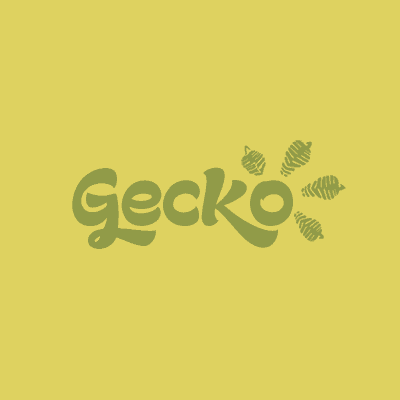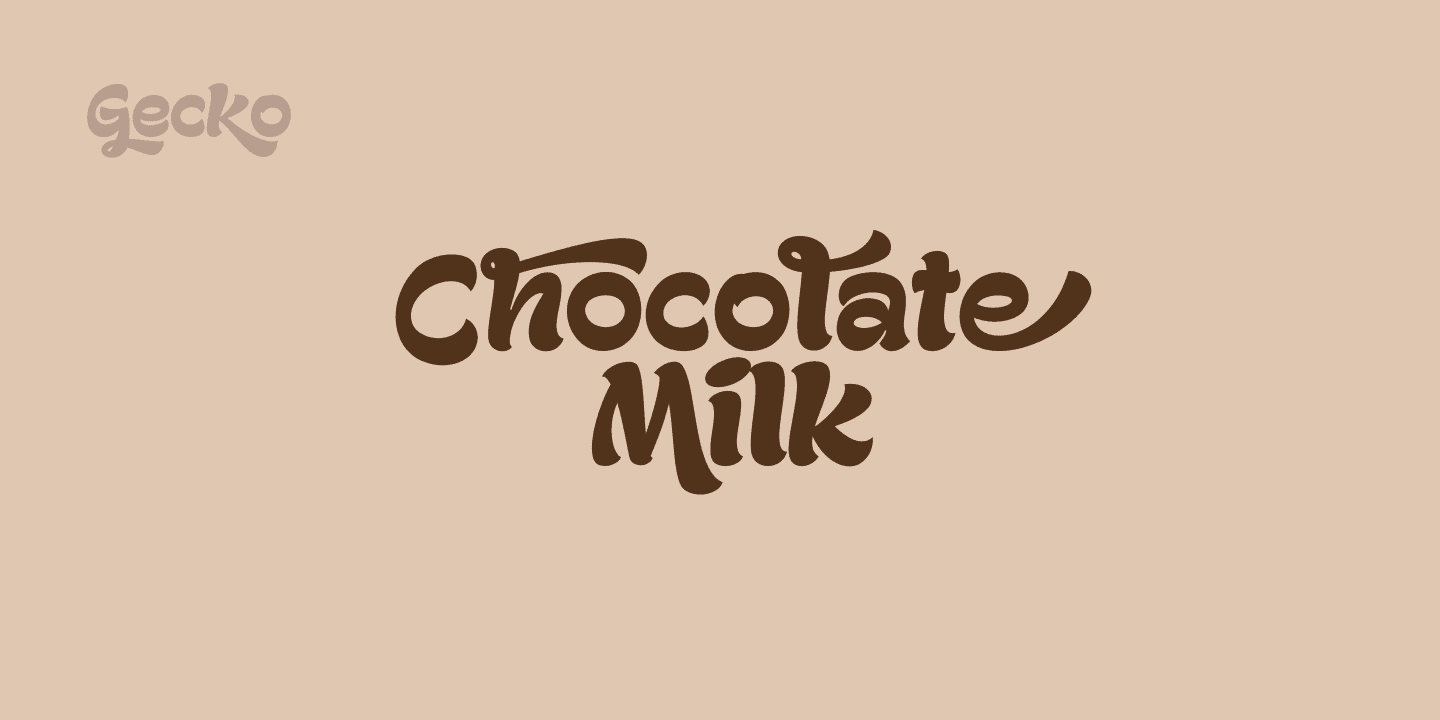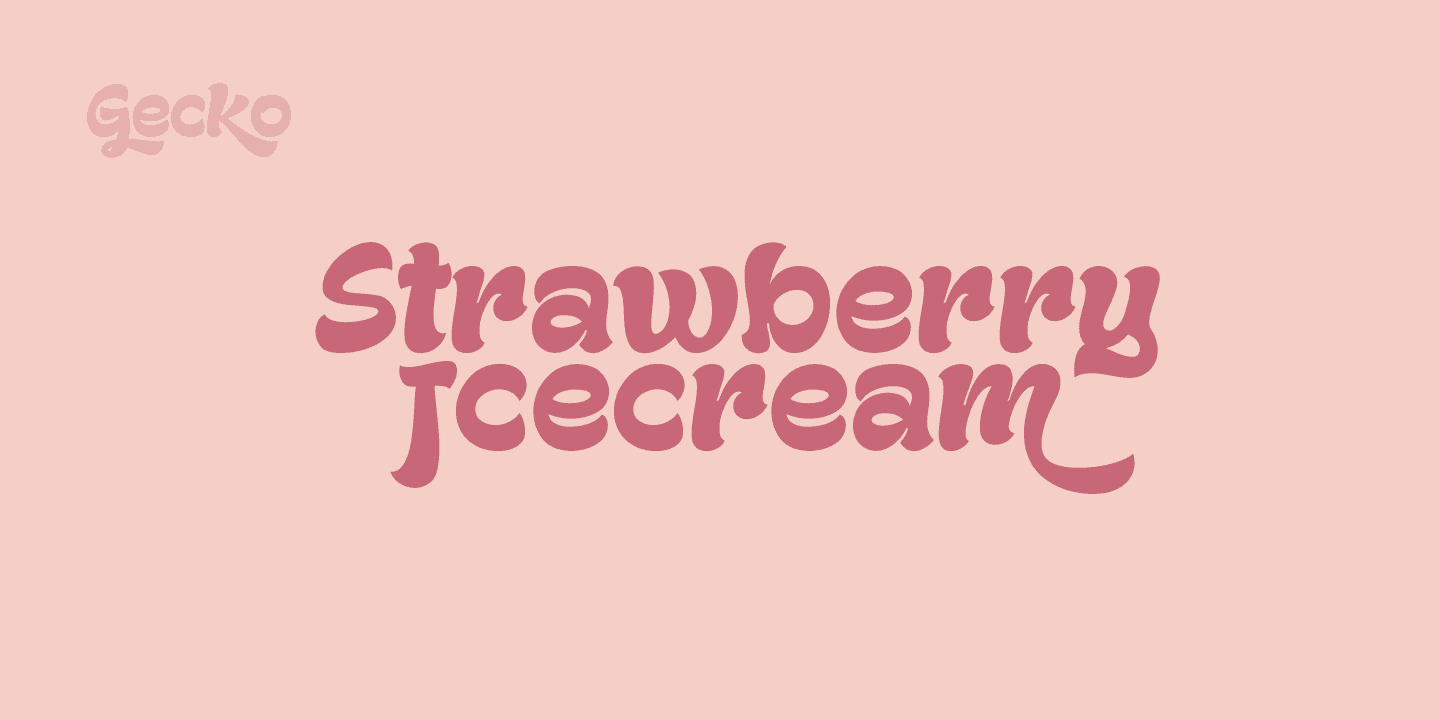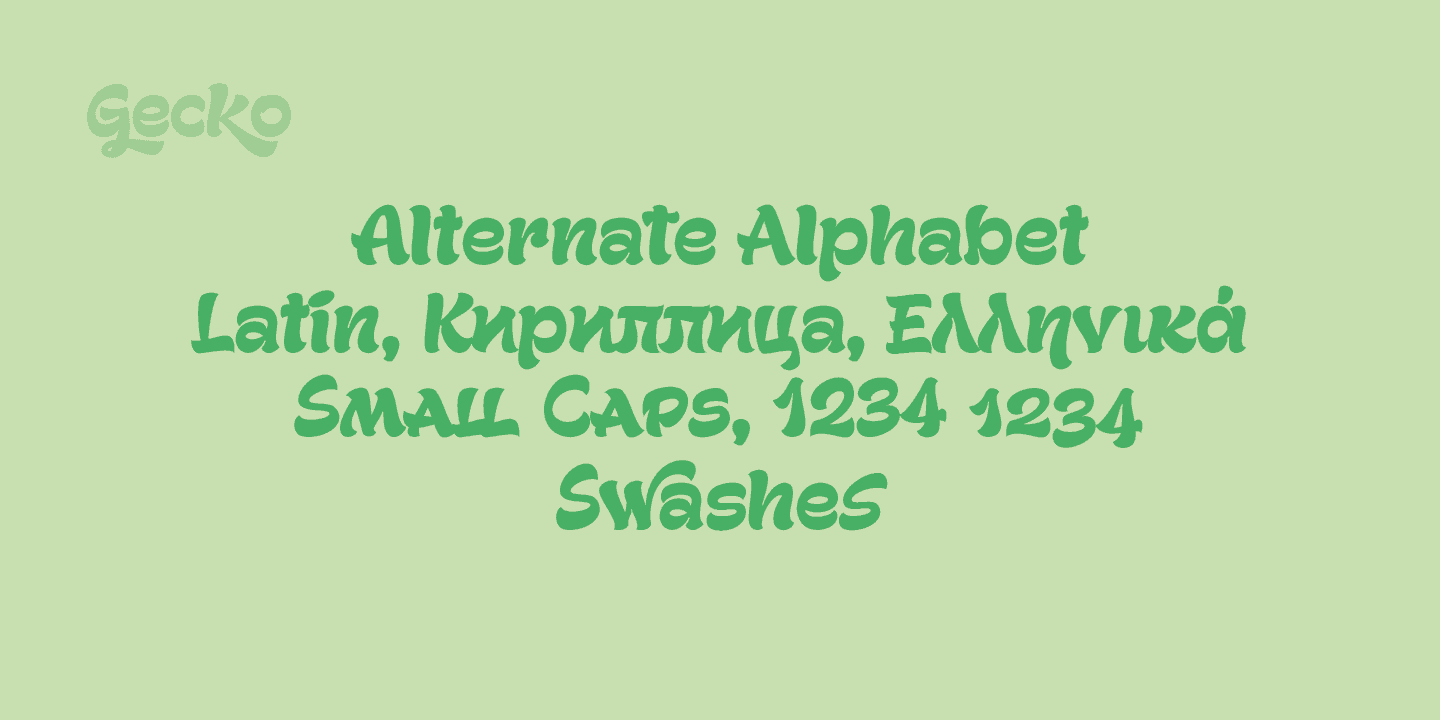
Gecko
Gecko is a clean and original typeface. It has a full alternate alphabet and support Latin languages, as well as Greek and Cyrillic. Swash versions of all Latin letters, multiple ligatures and small caps are some of the other functions of this typeface.